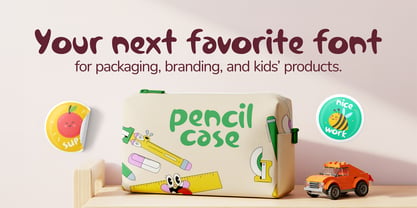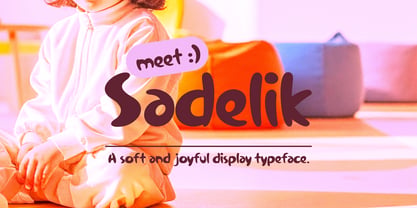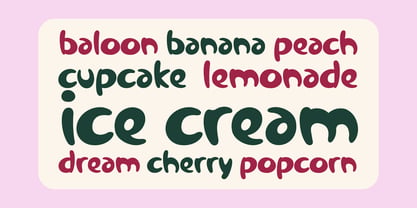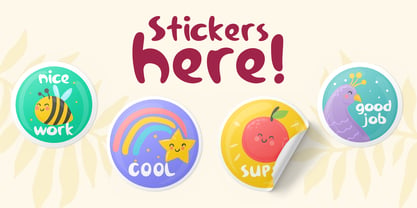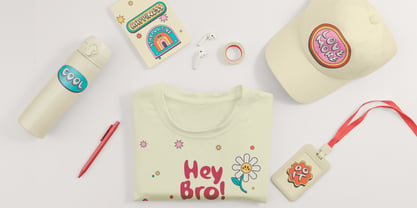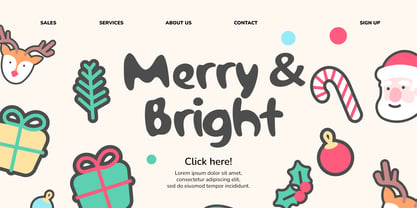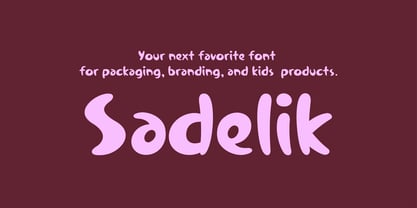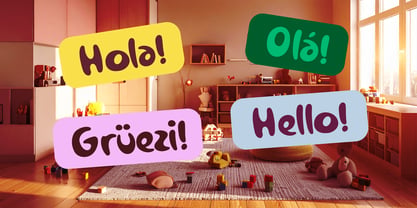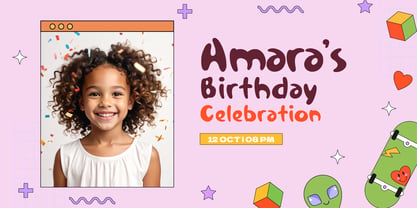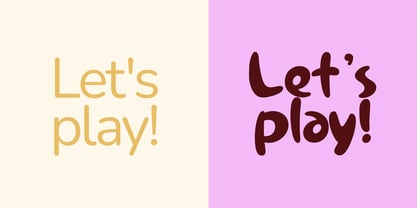
Sadelik
Die Schriftfamilie Sadelik wurde von Sadegül Bal entworfen und von Sadesign veröffentlicht. Sadelik enthält 1 Stile. Mehr über diese Familie
Sadelik is a soft and joyful display typeface inspired by the innocence and imagination of childhood. With its curvy and hand-drawn shapes, Sadelik brings a warm, friendly tone to any design it touches — from packaging and branding to children’s books, educational materials, and toy labels. The letterforms are roundish, playful, and slightly imperfect — intentionally crafted to evoke a handmade, sincere feeling. Sadelik supports multilingual typesetting and includes a wide range of accented characters, making it a versatile choice for global use. Designed for titles, short phrases, logos, and standout packaging copy, Sadelik is the perfect fit for brands and creators seeking a lighthearted, emotional, and human-centered aesthetic. Whether you're creating stickers, cards, book covers, or digital content, this typeface helps your message land with charm and character. Use Sadelik to speak with a smile.
Sadesign is a one-woman creative studio based in Istanbul, Turkey, focused on designing playful display fonts with a unique handmade spirit. The name "Sadesign" is a blend of my name, Sade, and my profession, design — reflecting a personal commitment to honest, expressive visual work.With nearly 20 years of experience in graphic design, branding, and packaging, I began developing my own fonts as a natural extension of storytelling through typography. I don’t run a type foundry in the traditional sense — instead, each typeface I release is a personal project, carefully drawn to serve a specific creative purpose.My fonts are crafted to feel both joyful and functional — perfect for small brands, boutique packaging, kids' products, or creative entrepreneurs looking for a clear visual voice. I pay close attention to balance, legibility, and emotional impact — every curve and contour is intentional.At Sadesign, typography isn’t just form — it’s feeling. I believe a single font can bring warmth, energy, and clarity to a design when done right.